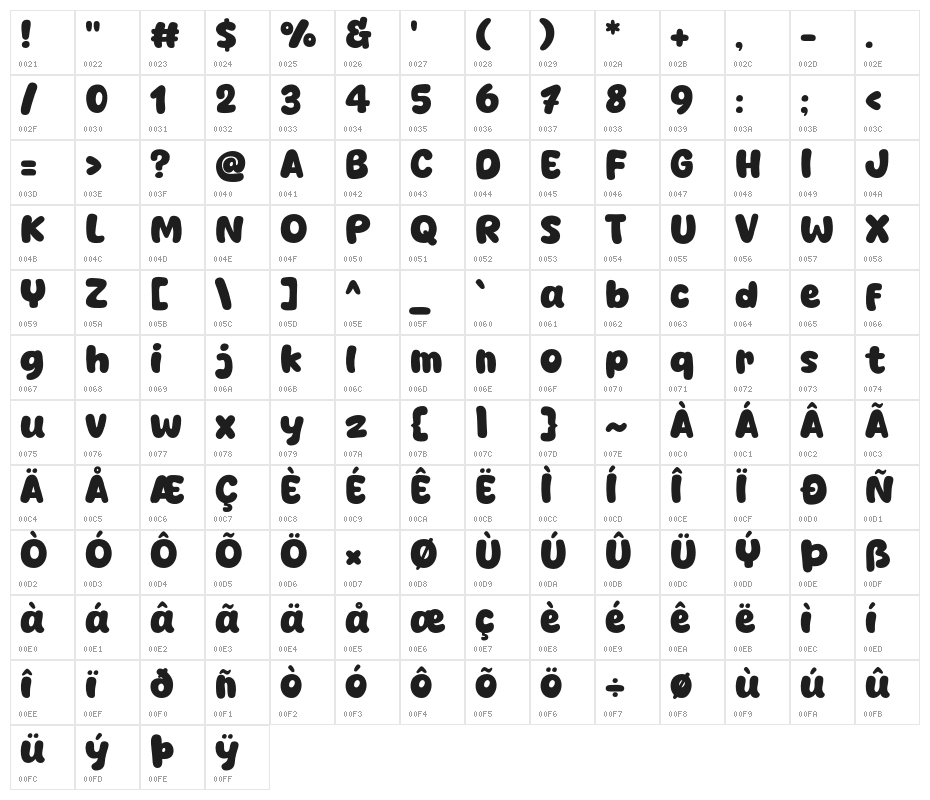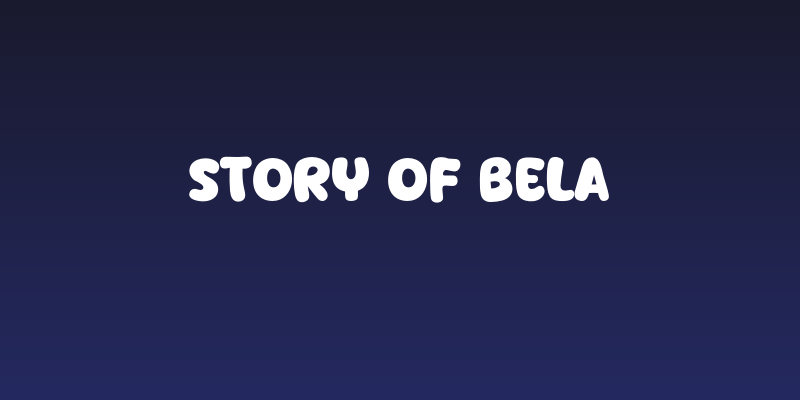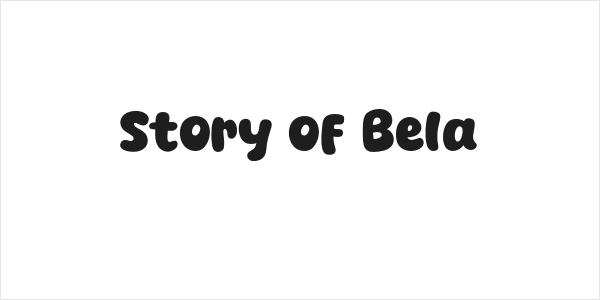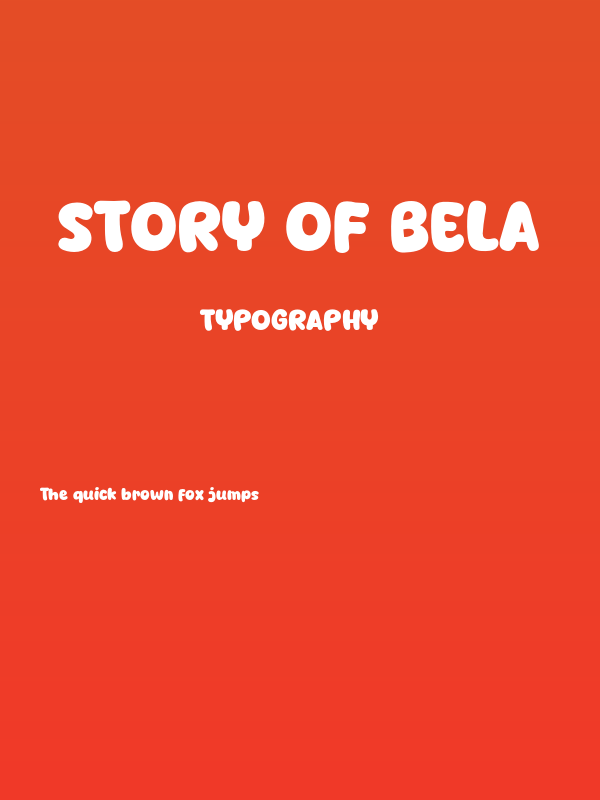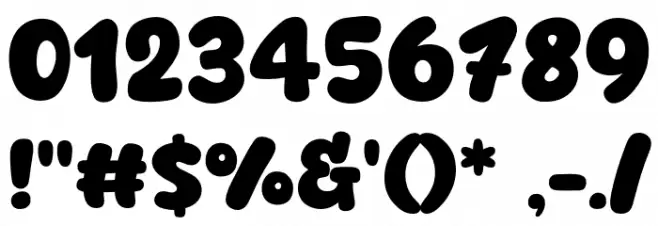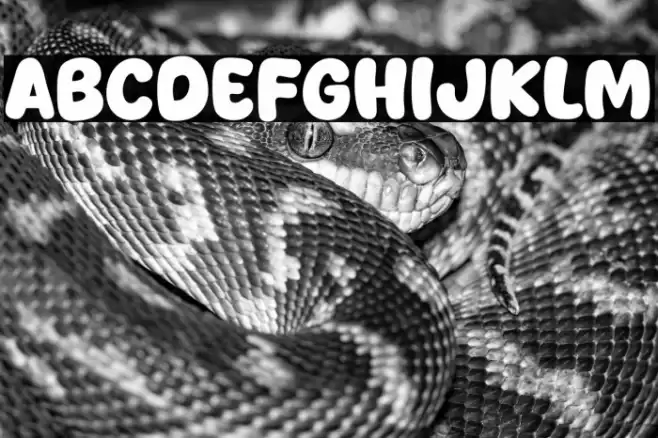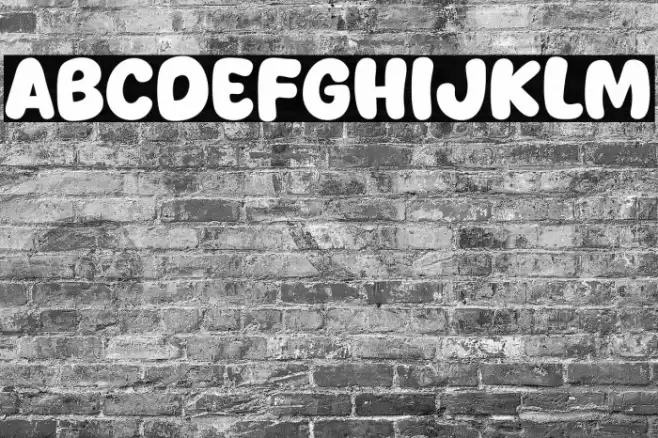
Story of Bela Font
Story of Bela Description
This font features a playful and bold design with rounded edges and a bubbly appearance. The characters are thick and have a consistent weight throughout, giving them a friendly and approachable look. The uppercase and lowercase letters maintain a uniform style, with a slight whimsical touch that adds character. The numerals and special characters are equally bold and rounded, ensuring consistency across all glyphs. This font's design is ideal for projects that require a fun and informal tone.
| Overall Style | Playful |
| Proposed Projects | Ideal for children's books, playful branding, party invitations, and casual posters. |